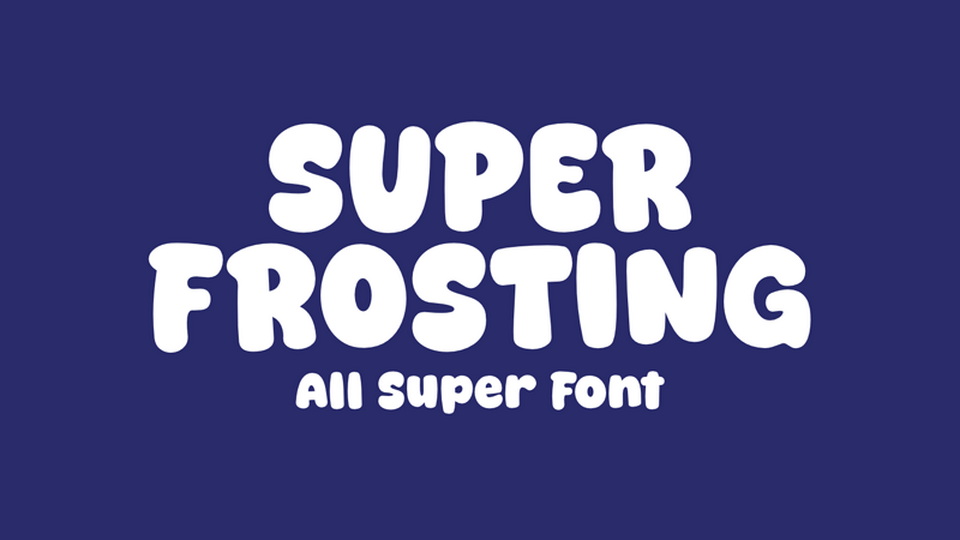
Download Super Frosting font, a soft and squishy display typeface that looks like it’s been piped from a cake with its plump, rounded letterforms and a delightfully smooth texture.